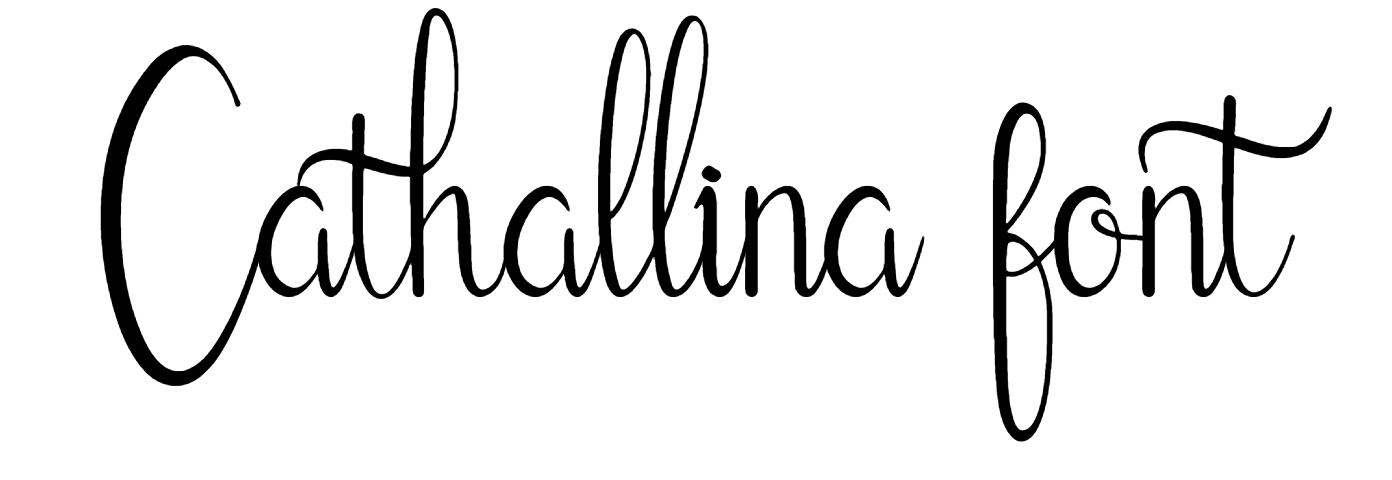
Cathallina
Cathallina is a calligraphy font designed by under21 studio (2019). The letters have the smooth movement of real pen lettering, which is why even a single name looks special in it. You can download it for free and test it with your own words in the preview above.
What You Can Type With Cathallina
You get every letter from A to Z in both cases and all the numbers from 0 to 9, which means Cathallina can handle full sentences, dates and prices. Everyday marks like &, !, ? and @ are there too. It has 6 accented letters, but not the full set for Spanish or French, so test any non-English words first.
How to Use the Alternate Letters in Cathallina
Where Cathallina Works Best
Designers usually reach for fonts like Cathallina when they're making wedding invitations, certificates and elegant quotes. Script fonts read best in short bursts, so keep it to names, titles and one-line quotes. Skip all caps: script capitals are drawn to start a word, not to fill one.
Does Cathallina support accented letters?
Partly. Cathallina has 6 accented letters, but not the complete set for Spanish, French or German. Type your words in the preview above to check before you use it.